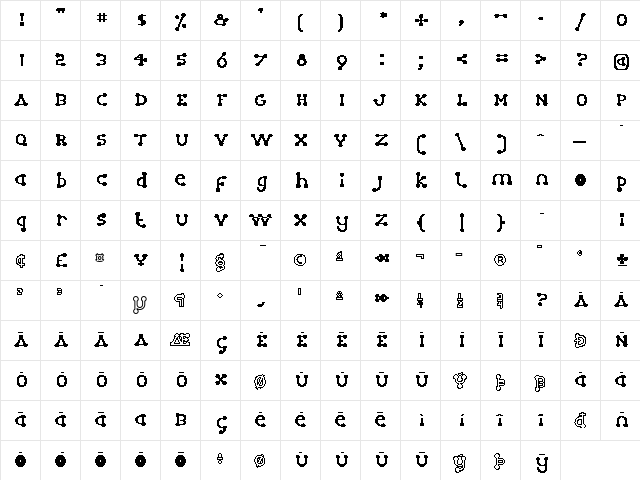
Atomium-Outline Regular
Design Context for Atomium-Outline Typeface
Atomium-Outline brings ornamental detail and strong personality to headlines and identities, where visual impact matters more than quiet functionality.
Font Pairing: Pair with a clean neutral sans-serif for body copy to let Atomium-Outline's character lead without overwhelming the composition.
Pro Tip: Treat Atomium-Outline as the centrepiece of your typographic hierarchy. One strong heading set in a decorative face can carry an entire layout.